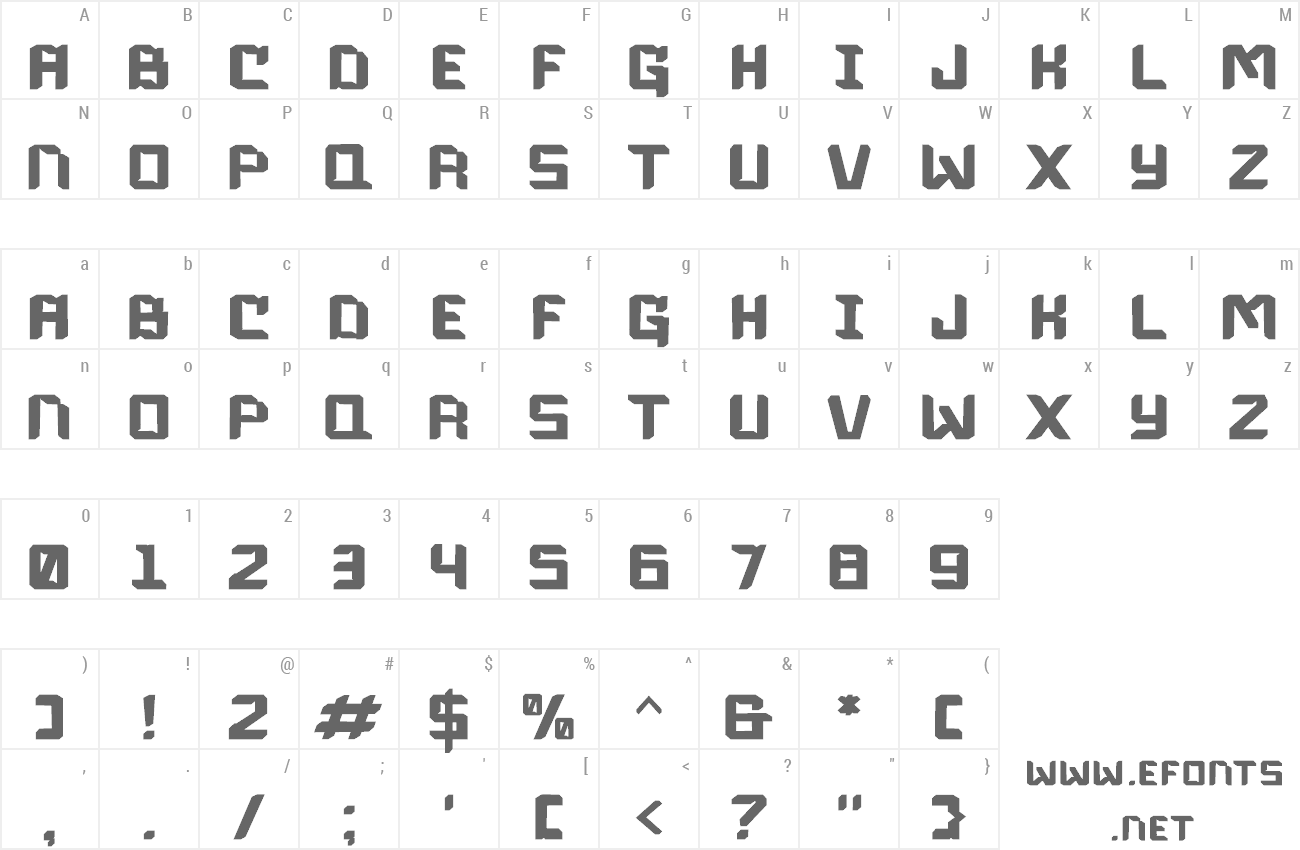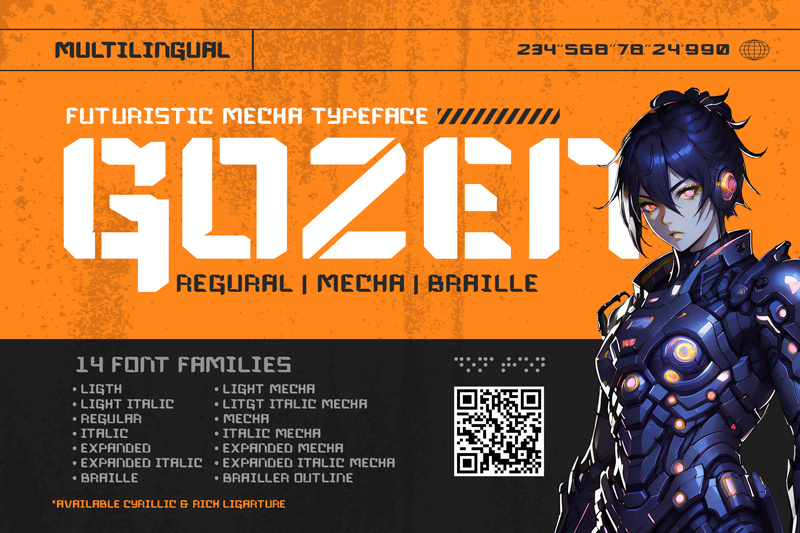
Preview and download Gozen Font. Created by Mohamad Farhan Ramadhan in Techno Sci-fi styles with Free for personal use license.
Immerse yourself in the world of the future with Gozen, a strikingly bold typeface carefully engineered for contemporary style. Gozen is futuristically designed, yet rooted strongly in the present. With 14 uniquely-styled fonts, and even support for Braille in both Latin and Cyrillic forms, it broadens the horizon of its usability. It also features a one-of-a-kind stencil/mecha variant, making Gozen the versatile typeface to choose. Perfect for creating an unforgettable brand identity, composing captivating gaming interfaces, making headlines pop, jazzing up streetwear designs, stylizing album covers or innovating logo creation - Gozen's remarkable and distinctive style is designed to ensure your message stands out from the crowd. Get ready to grasp the pulse of the future, with Gozen - where daring design meets groundbreaking innovation. Support Cyrillic and Braille Pattern _________________________________________________________ By installing or using this font, you are agree to the Product Usage Agreement: This font is already FULL VERSION and ONLY REGULAR VERSION for PERSONAL USE. NO COMMERCIAL USE ALLOWED! Here is the link to purchase COMMERCIAL LICENSE: https://crmrkt.com/AdNBV5 If you need a CUSTOM LICENSE or CORPORATE LICENSE please contact us at: mofr24.artwork@gmail.com Any donation are very appreciated. Our Paypal account for donation : More... |